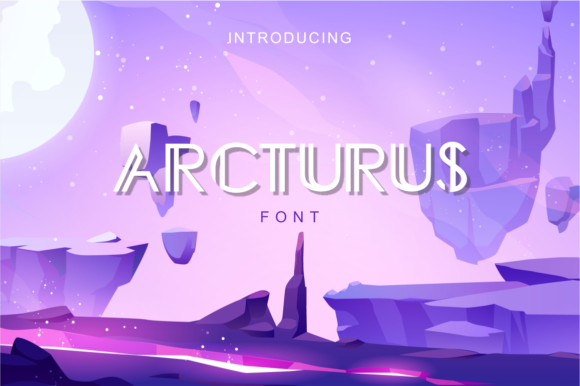
Introduction to Arcturus Font
Arcturus is a cool, modern and fresh display font.
Key Features of Arcturus Font
Why Choose Arcturus Font?
Arcturus Font offers exceptional quality and versatility, making it a valuable addition to your design toolkit. Whether you’re creating for personal projects or commercial use, Arcturus Font delivers professional results.